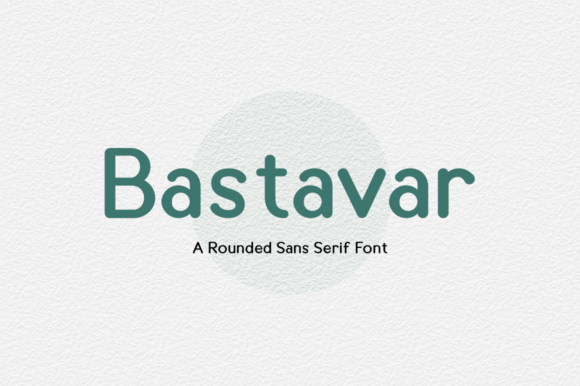
**Introducing Bastavar: The Font That Will Make Your Blog Soar**
In the world of blogging, your words are your currency. But what if you could make those words even more captivating, even more engaging? That's where Bastavar comes in.
Bastavar is a minimal and neat sans serif font that is perfect for any blog. It is clean, easy to read, and stylish, and it will help your words stand out from the crowd.
But Bastavar is more than just a pretty face. It is also incredibly versatile. You can use it for headlines, body text, and even logos. It works well with both short and long passages, and it can be used to create a variety of different looks.
**Here are just a few of the benefits of using Bastavar:**
* It is clean, easy to read, and stylish.
* It is versatile and can be used for a variety of purposes.
* It is perfect for both short and long passages.
* It can be used to create a variety of different looks.